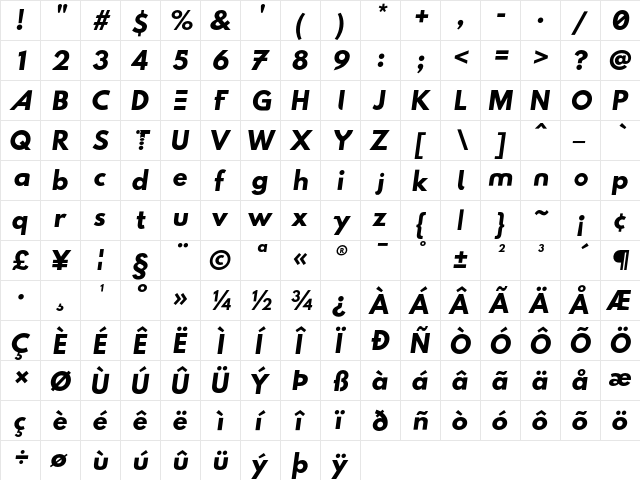
Hussar Techniczny Bold
Design Context for Hussar Techniczny Typeface
Hussar Techniczny has a distinctly futuristic character, with geometric precision and clean angles that feel at home in technology, gaming, and sci-fi contexts. Its bold stroke weight gives it real presence on the page.